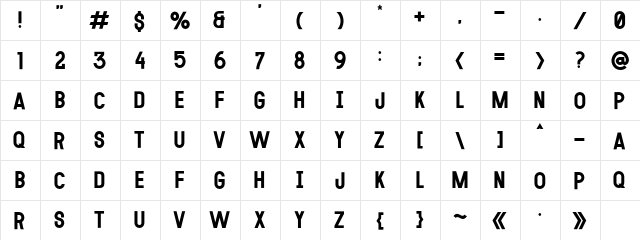
MODULAR 14
Design Context for MODULAR Typeface
MODULAR takes a measured approach to typography — its balanced proportions and neutral character make it a reliable workhorse for both digital and print work.